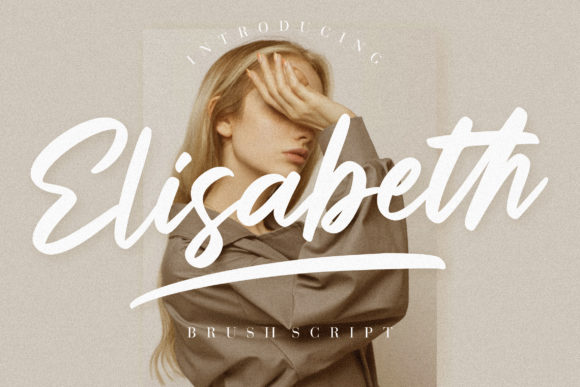
Introducing Elisabeth Font, the perfect choice for those seeking the ultimate cursive brushed script font to elevate their projects. Designed by CreatypeStudio, this font family is specifically tailored for users looking to create stunning framed quotes and add a touch of elegance to their designs.
With its contemporary atmosphere and impeccable form, Elisabeth Font draws inspiration from timeless classic calligraphy. Its carefully balanced and varied strokes strike the perfect harmony, making it an ideal choice for any creative endeavor. Whether you're designing invitations, logos, or social media graphics, this font will effortlessly enhance the beauty of your projects.
What sets Elisabeth Font apart is its versatility and accessibility. It has been PUA encoded, granting you seamless access to all its glyphs and swashes. Say goodbye to the hassle of searching for the perfect character or embellishment; Elisabeth Font puts them at your fingertips, allowing you to unlock a world of creative possibilities.
Immerse yourself in the captivating charm of Elisabeth Font. Its elegant curves and graceful strokes evoke a sense of sophistication, making every word you write a true work of art. Whether you want to create heartfelt quotes, personalized gifts, or captivating headlines, this font will captivate your audience and leave a lasting impression.
Let Elisabeth Font be your artistic companion, enabling you to craft visually stunning designs that resonate with emotion. Its contemporary yet timeless style will infuse your projects with a touch of class and allure. From wedding invitations to inspirational wall art, the possibilities are endless when you harness the power of Elisabeth Font.